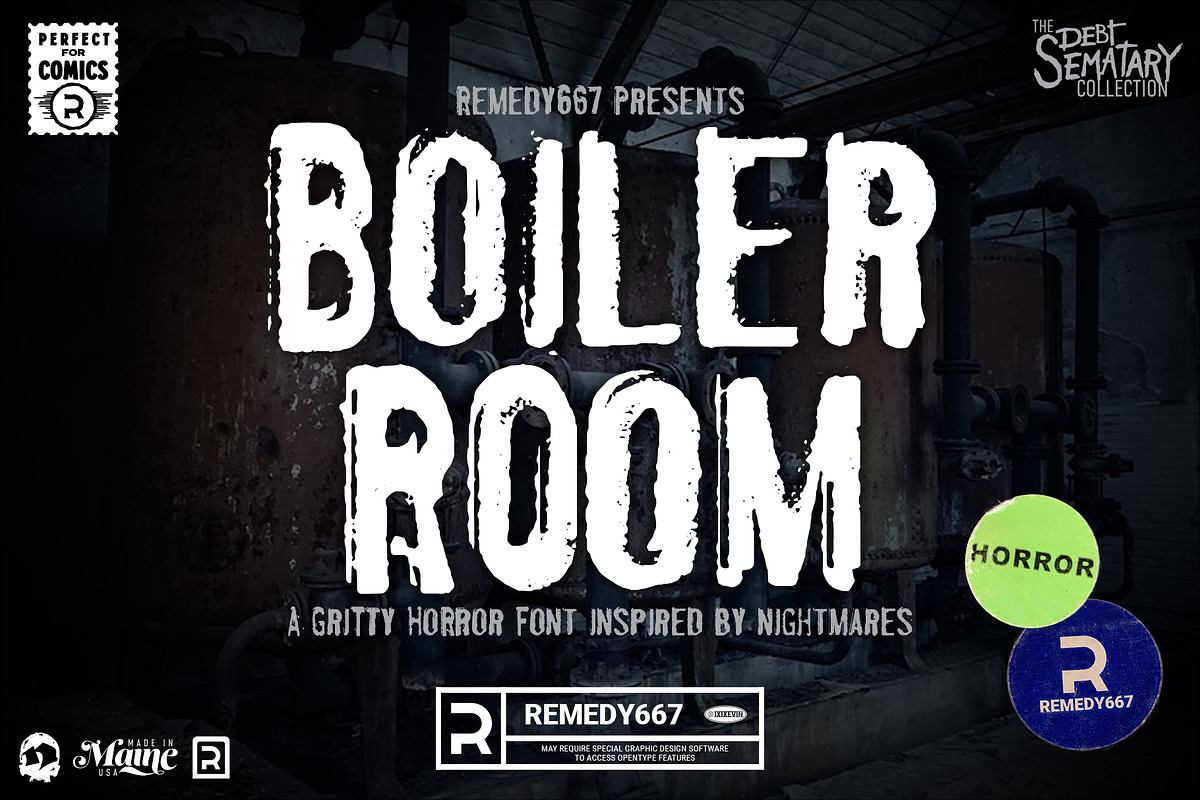
Boiler Room Font Free Download is a bold, industrial-inspired typeface that combines raw, gritty elements with modern typographic precision. Featuring strong lines, sharp edges, and a mechanical aesthetic, this font is perfect for urban, underground branding, tech designs, event posters, product packaging, and anything that needs a bold, impactful look.
Its tough, almost industrial feel gives it a strong presence, making it ideal for edgy brands or projects related to music, fashion, and street culture. Whether you're designing for a tech company, music festival, or merchandise, Boiler Room Font Free Download delivers the power and character you're looking for.
Bring industrial strength and style to your designs with the bold, modern edge of Boiler Room.